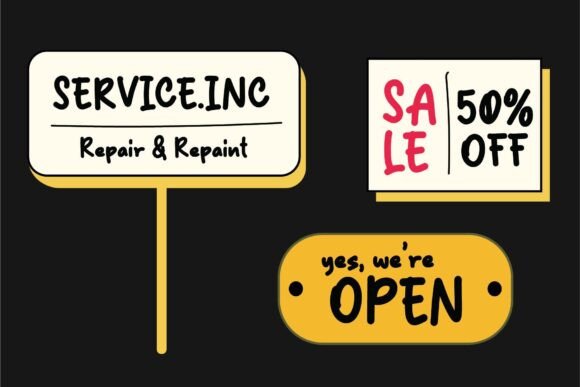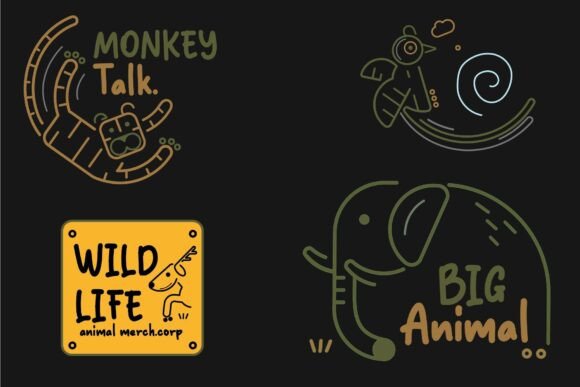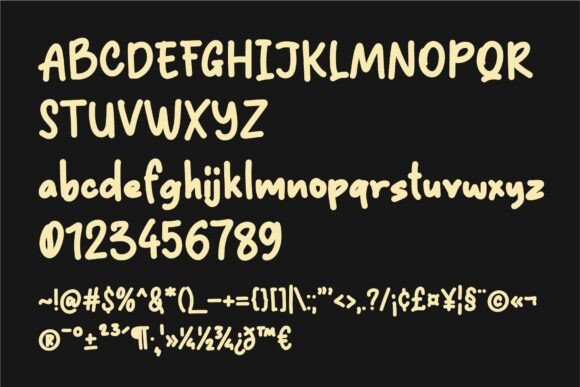
Introduction to Hocky Dockies Font
Hocky Dockies is modern sans font insprire by kids poster lettering art.
Hocky Dockies is a perfect choice for any creative endeavor, chic, lifestyle design such as logos, advertisements, watermarks on photography, stationery, branding projects, display and magazines, invitations, corporate brands, product designs, labels, business projects, and many other projects with a creative playful touch .
Key Features of Hocky Dockies Font